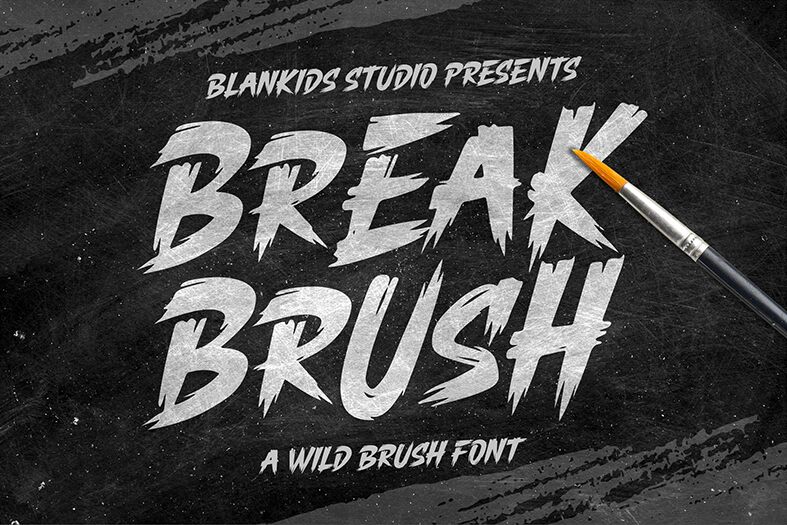
Break Brush Regular
Break Brush, a captivating brush-style font crafted by Blankids, exudes a raw, dynamic energy that commands attention. This bold typographic masterpiece features organic, textured strokes that seamlessly blend the distinction of hand-lettering with the precision of digital design. The font's uncompromising aesthetic evokes a sense of rugged individuality, making it an ideal choice for projects seeking to convey a bold, edgy, and visually striking tone.
Break Brush's versatility shines through, making it a versatile choice for a wide range of design applications. Its robust, attention-grabbing presence lends itself perfectly to headlines, logos, and branding materials, effortlessly capturing the essence of contemporary, cutting-edge aesthetics. Whether used for product packaging, editorial layouts, or digital interfaces, Break Brush by Blankids delivers a powerful and memorable visual impact that is sure to leave a lasting impression.